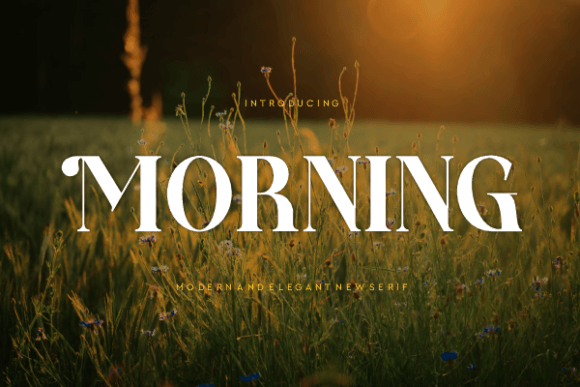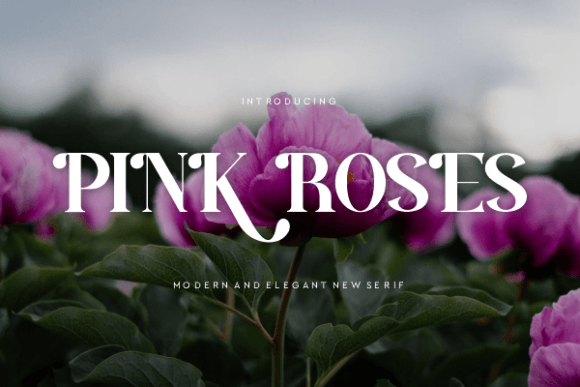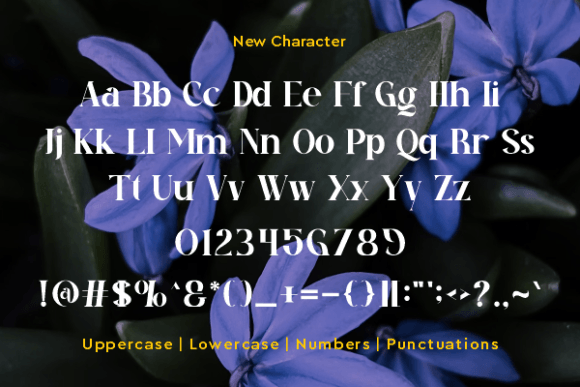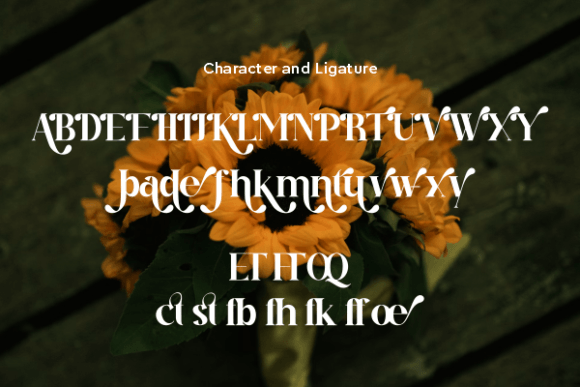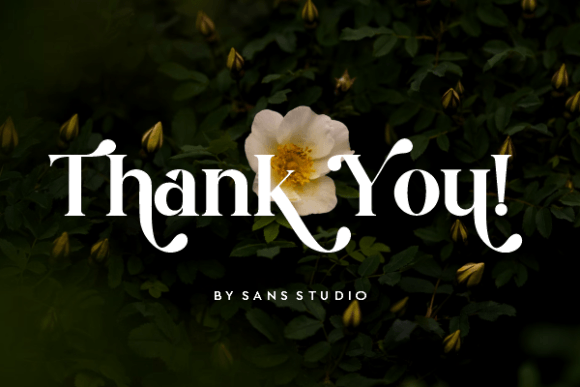
Introducing Antasena Font: Elevate Your Designs with Elegance and Boldness
Are you on the hunt for a font that exudes elegance, sophistication, and versatility? Look no further than Antasena Font! This stunning serif font is making waves in the design community, and for good reason. With its unique blend of boldness and refinement, Antasena is the perfect choice for designers and crafters looking to elevate their projects.
The Perfect Blend of Elegance and Boldness
Antasena Font is an elegant and bold serif font that is sure to capture your heart. Its incredibly versatile style makes it suitable for a wide range of applications, from wedding invitations and stationary art to social media posts and more. Whether you’re a seasoned designer or a crafty DIY enthusiast, Antasena is sure to inspire your creativity.
What Makes Antasena Font So Special?
So, what sets Antasena apart from other fonts? Here are just a few reasons why this font is a cut above the rest:
- Elegant and Refined: Antasena’s serif design gives it a sophisticated and elegant feel that’s perfect for high-end designs.
- Bold and Eye-Catching: With its bold lines and striking appearance, Antasena is sure to grab attention and make your designs stand out.
- Versatile: Whether you’re creating wedding invitations, social media posts, or stationary art, Antasena’s versatility makes it the perfect choice.
Endless Design Possibilities with Antasena Font
Antasena Font is incredibly versatile, making it suitable for a wide range of design projects. Here are just a few ideas to get you started:
- Wedding Invitations: Create stunning wedding invitations that set the tone for a beautiful and elegant celebration.
- Stationary Art: Add a touch of sophistication to your stationary art with Antasena’s elegant and refined design.
- Social Media Posts: Make your social media posts stand out with Antasena’s bold and eye-catching appearance.
- Branding and Packaging: Use Antasena to create a cohesive and professional brand identity that will leave a lasting impression.
Why Designers and Crafters Love Antasena Font
Antasena Font has quickly become a favorite among designers and crafters, and for good reason. Here are just a few reasons why:
- Easy to Read: Antasena’s clear and concise design makes it easy to read, even at small sizes.
- Highly Customizable: With its wide range of design possibilities, Antasena can be tailored to suit any design style or aesthetic.
- Unique and Memorable: Antasena’s bold and striking appearance makes it a standout font that’s sure to leave a lasting impression.
Get Ready to Fall in Love with Antasena Font
If you’re looking for a font that will elevate your designs and inspire your creativity, look no further than Antasena Font. With its elegant and bold design, versatility, and ease of use, Antasena is sure to become your new go-to font. So why wait? Fall in love with Antasena Font today and start creating stunning designs that will leave a lasting impression!
In conclusion, Antasena Font is a game-changer for designers and crafters looking to elevate their projects. With its unique blend of elegance and boldness, versatility, and ease of use, Antasena is the perfect choice for anyone looking to create stunning designs. Whether you’re a seasoned designer or a crafty DIY enthusiast, Antasena Font is sure to inspire your creativity and take your designs to the next level.